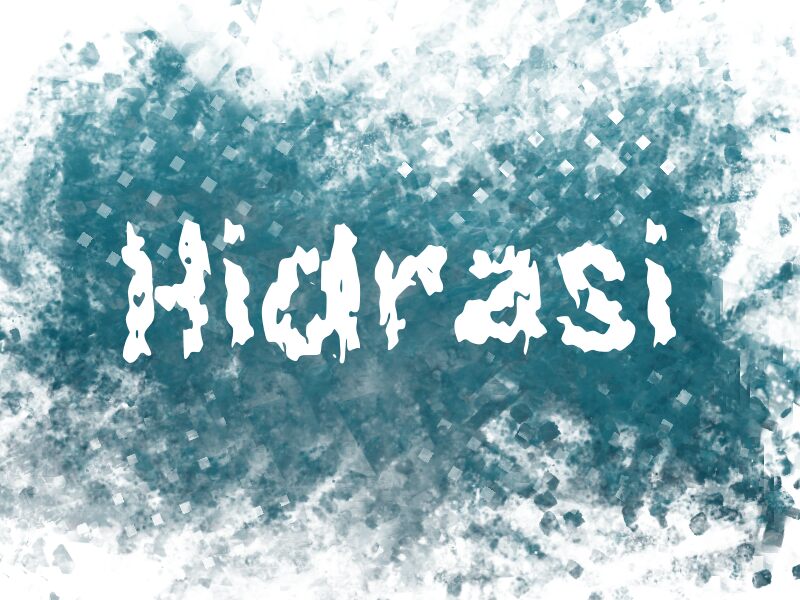
Hidrasi
Hidrasi font by wep is a grunge display typeface with an irregular form, brilliant for projects deliberately set to break all the rules. The decorative font features bold letters, and a chaotic style which gives it its overall edgy look. Hidrasi can even be labeled artistic as it has a unique texture, and dynamic feel. Download this free font from Font Fabric.
Projects that need an infusion of dynamism or a touch of rebellion will stylistically benefit from Hidrasi’s contribution. Create posters for museums or special events like concerts; build book covers for Science-fiction novels; write titles for university projects; get creative with logos built from textual brand names.